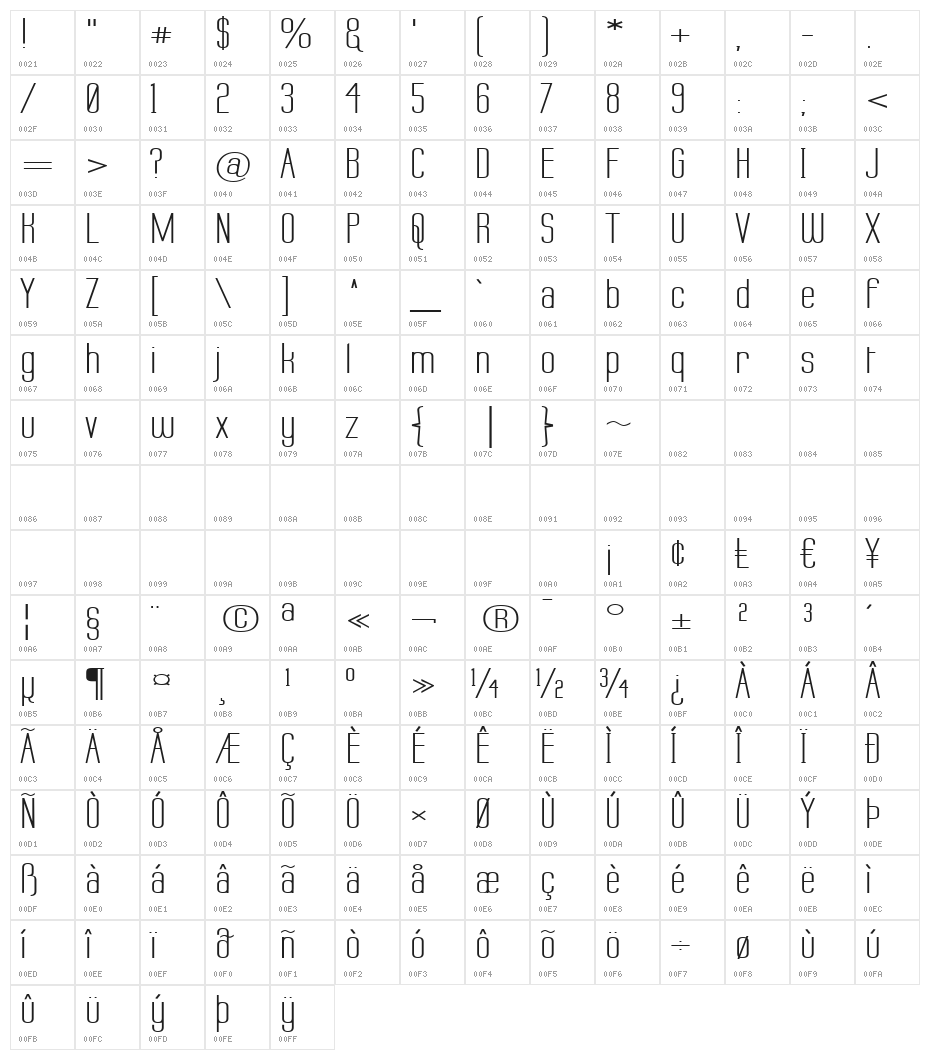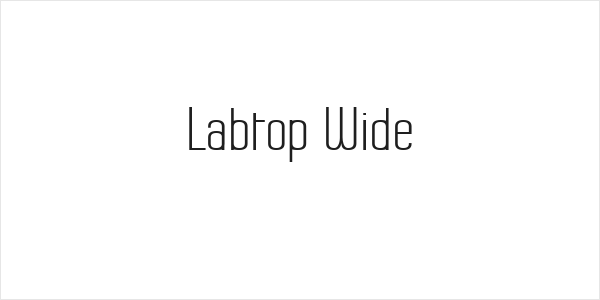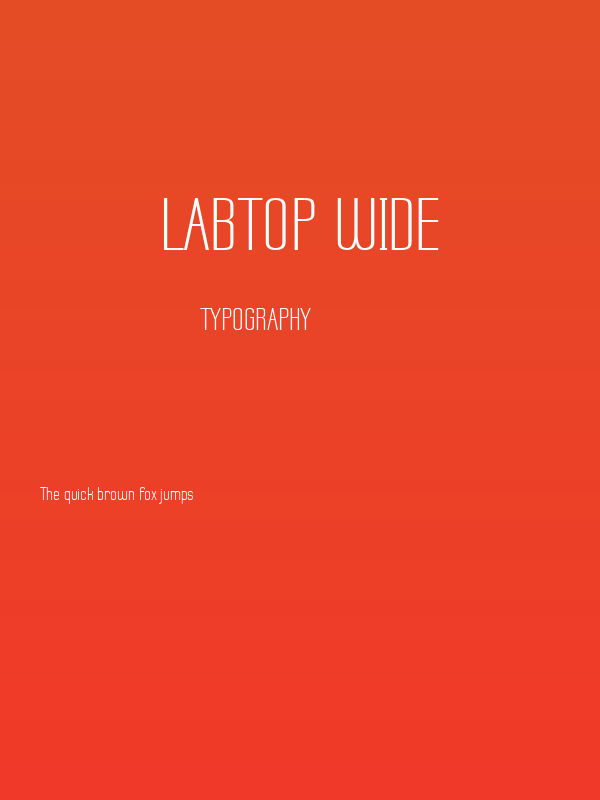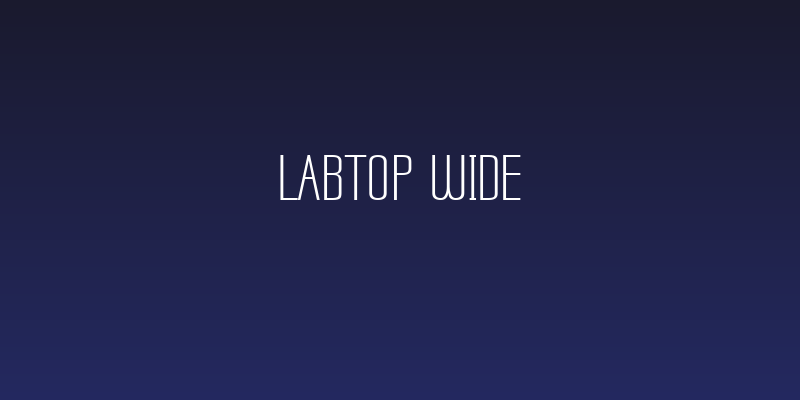
Labtop Wide Font
Labtop Wide Description
This font features a sleek and modern design with elongated characters that give it a distinctive, contemporary look. The uppercase letters are tall and narrow, while the lowercase letters maintain a consistent height, creating a harmonious balance. The numerals are clean and straightforward, complementing the overall aesthetic. Special characters are designed with the same attention to detail, ensuring uniformity across all glyphs. The font's thin strokes and minimalistic style make it ideal for projects that require a modern and professional appearance.
Use CaseHeadlines, Logos, Digital Media
Proposed ProjectsIdeal for branding, advertising, and digital media projects that require a modern and professional look.